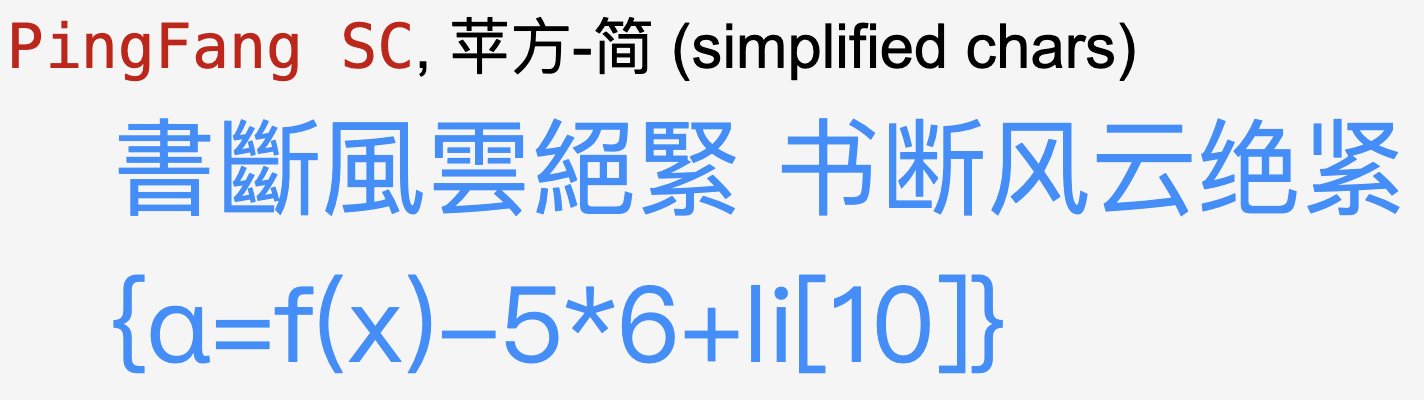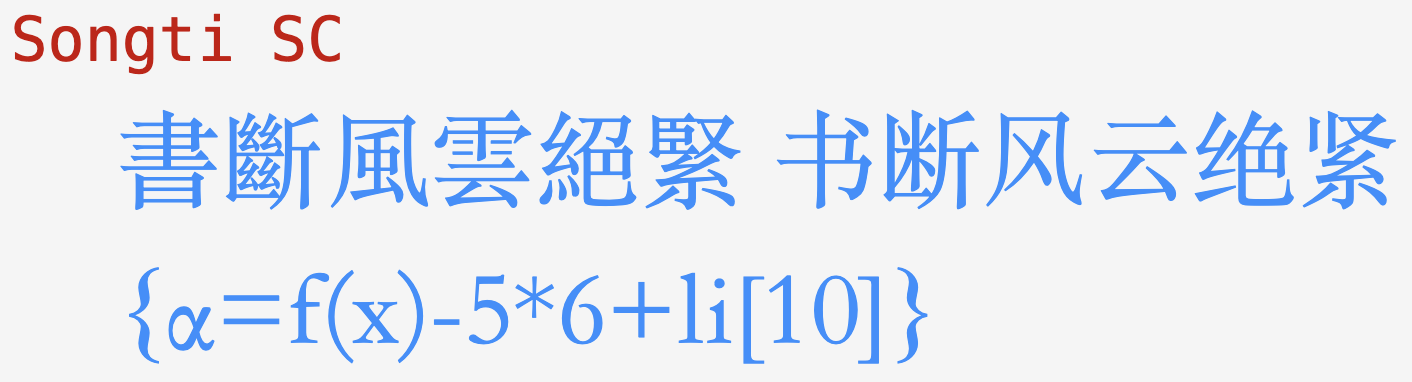
CSS: Chinese font guide 黑體 宋體
Chinese typefaces
There are 3 major Chinese typefaces.
Sans-Serif (Hei 黑體)
Uniform thickness. Usually used on computer for body text.
Serif (Song 宋體 / Ming 明體)
Font name often contain Song/Ming 宋體/仿宋/明體.
Brush Stroke (Kai 楷軆)
Each stroke's thickness varies.
Language Attribute
Specify a Language Attribute. This helps browser choose the right font. Otherwise it'll often assume Japanese and result in inconsistent rendering.
lang="zh"
lang code for Chinese.
lang="zh-cn"
For China. Uses simplified char.
lang="zh-tw"
For Taiwan. Uses traditional char.
The WenQuanYi (文泉驛) family is most common. This family does not include brush-stroke style (Kei) typeface though. This is the only Chinese font installed with Ubuntu by default, as of 2012-04.